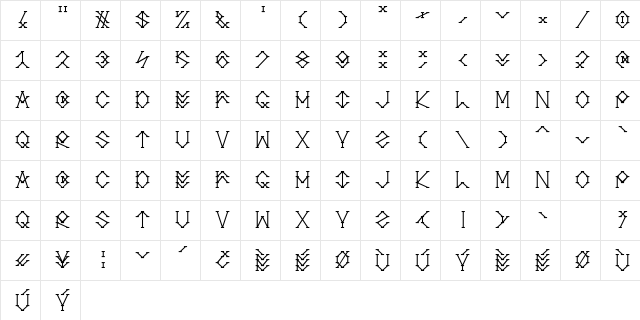
Pulstar Regular
| Designer | GGBot |
Design Context for Pulstar Typeface
Pulstar is a composed and adaptable typeface that performs quietly and consistently across a wide range of design contexts.